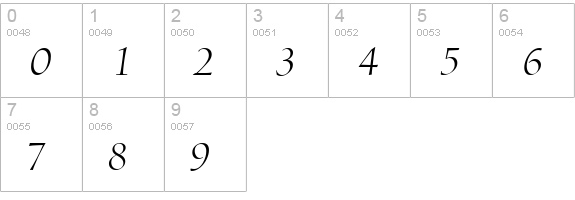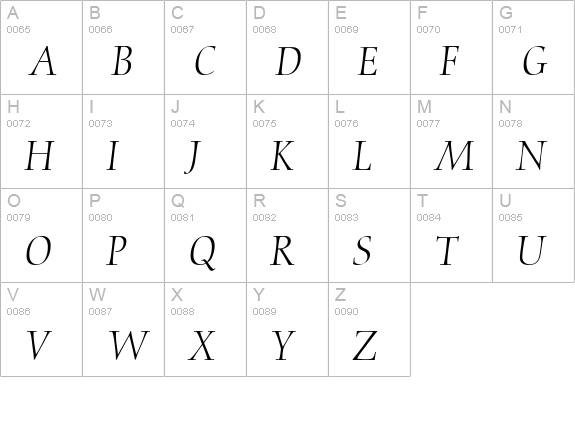
D730-Roman-Italic is a distinctive, italic variant in the D730 typeface family \xE2\x80\x94 well suited to design and typography projects.
D730 Roman Italic font is a classic and elegant typeface that exudes sophistication and style. Its sleek and graceful curves make it perfect for adding a touch of refinement to any design project. The distinctive italic slant of the letters adds a sense of flair and drama, making this font a versatile choice for a wide range of applications. What makes D730 Roman Italic font even more appealing is that it is available for free download at FontsMarket.com. This means that you can easily access this beautiful typeface without having to spend a single penny. Whether you're working on a personal project or a professional design, D730 Roman Italic font is sure to elevate your work and make a lasting impression. Download it today and add a touch of elegance to your typography collection.